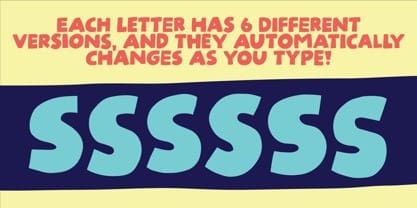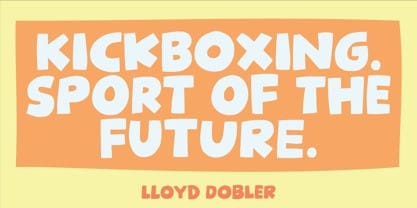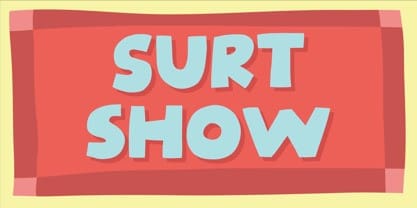
Orange Juice Display Font
Orange Juice embodies fun, quirkiness and authenticity. This enchanting display font will turn any creative idea into a true standout. Use this cute font to bring any DIY project to life!